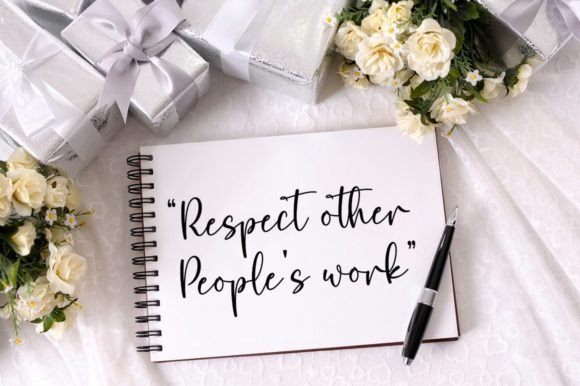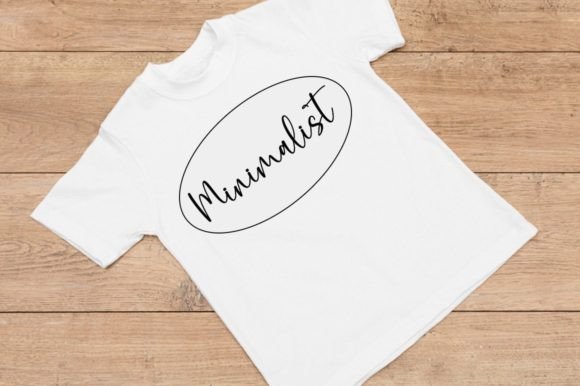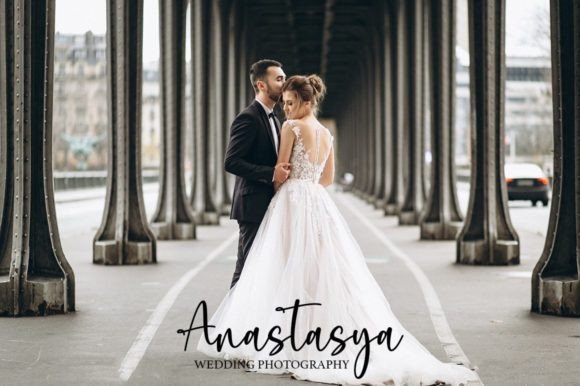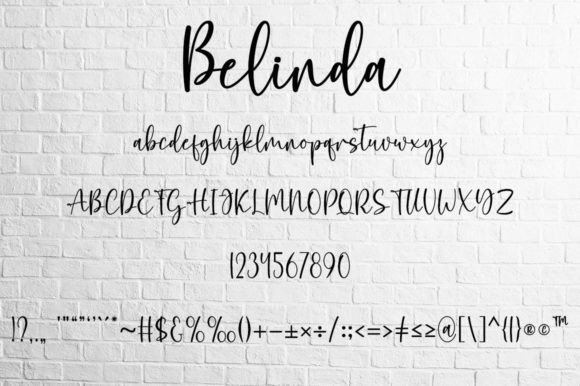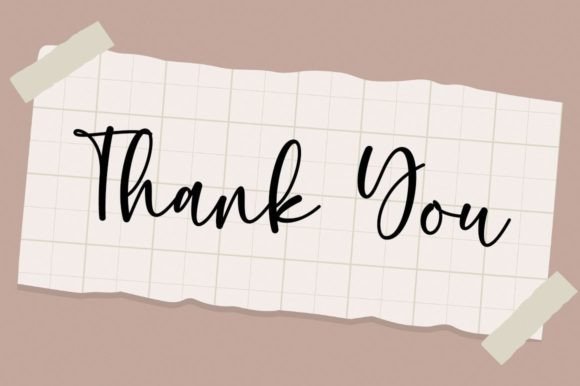
Introducing Belinda Font: The Ultimate Calligraphy Typeface for Luxurious Designs
Are you a designer or crafter looking for a typeface that exudes romance and sophistication? Look no further than Belinda Font, a beautiful calligraphy typeface that is sure to add a touch of luxury to any design project. With its flowing characters that dance along the baseline, Belinda Font is the perfect choice for those who want to create stunning and elegant designs.
What is Belinda Font?
Belinda Font is a romantic and sweet calligraphy typeface that features characters that are carefully crafted to create a sense of movement and fluidity. Each letter is designed to flow smoothly into the next, creating a beautiful and harmonious visual effect. The font is perfect for use in a variety of design projects, including wedding invitations, branding, packaging, and more.
Key Features of Belinda Font
- Romantic and Sweet Design: Belinda Font features a romantic and sweet design that is perfect for creating elegant and sophisticated designs.
- Flowing Characters: The characters in Belinda Font are designed to flow smoothly along the baseline, creating a beautiful and harmonious visual effect.
- Luxury Appeal: Belinda Font is perfect for designers and crafters who want to add a touch of luxury to their designs.
- Versatile: Belinda Font can be used in a variety of design projects, including wedding invitations, branding, packaging, and more.
Benefits of Using Belinda Font
There are many benefits to using Belinda Font in your design projects. Here are just a few:
- Adds a Touch of Elegance: Belinda Font adds a touch of elegance and sophistication to any design project.
- Creates a Beautiful Visual Effect: The flowing characters in Belinda Font create a beautiful and harmonious visual effect that is sure to capture the attention of your audience.
- Perfect for Romantic Designs: Belinda Font is perfect for designers and crafters who want to create romantic and sweet designs, such as wedding invitations and love letters.
Design Ideas Using Belinda Font
Belinda Font is a versatile typeface that can be used in a variety of design projects. Here are a few ideas to get you started:
- Wedding Invitations: Use Belinda Font to create beautiful and elegant wedding invitations that will set the tone for the big day.
- Branding: Use Belinda Font to create a luxurious brand identity for your business or product.
- Packaging: Use Belinda Font to create beautiful and eye-catching packaging that will stand out on store shelves.
- Stationery: Use Belinda Font to create elegant and sophisticated stationery, such as letterhead and business cards.
In conclusion, Belinda Font is a beautiful and elegant calligraphy typeface that is perfect for designers and crafters who want to add a touch of luxury to their designs. With its flowing characters and romantic design, Belinda Font is sure to create a stunning and harmonious visual effect in any design project. Whether you’re creating wedding invitations, branding, packaging, or stationery, Belinda Font is the perfect choice.